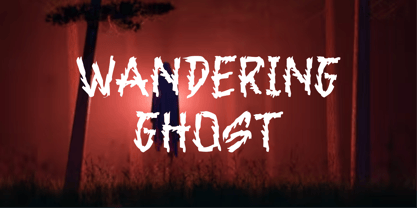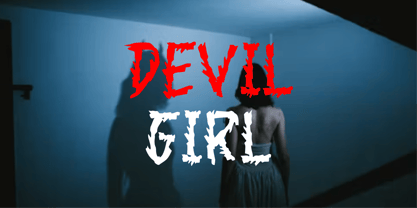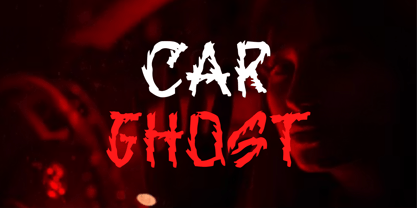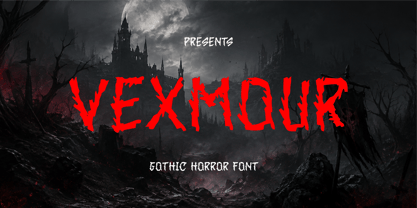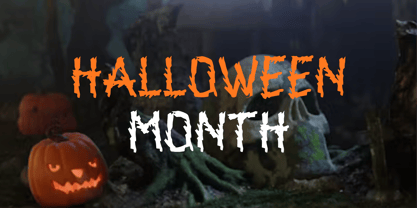
Vexmour
La familia tipográfica Vexmour fue diseñada por Arif Novianto y publicada por Arif Novianto. Vexmour contiene 1 estilos. Más información sobre esta familia
Vexmour – Gothic Horror Font
Vexmour is a dark and haunting Gothic Horror font designed to bring a mysterious, eerie, and distressed character to your designs. With its rough textures, irregular shapes, and dramatic letterforms, Vexmour creates an intense atmosphere that feels raw, sinister, and unsettling.
Perfect for horror movie posters, Halloween artwork, metal and rock branding, album covers, book covers, game titles, tattoo designs, streetwear, logos, merchandise, and dark-themed promotional graphics.
Vexmour is especially effective for bold headlines and impactful typography where you want a strong gothic and terrifying visual presence.